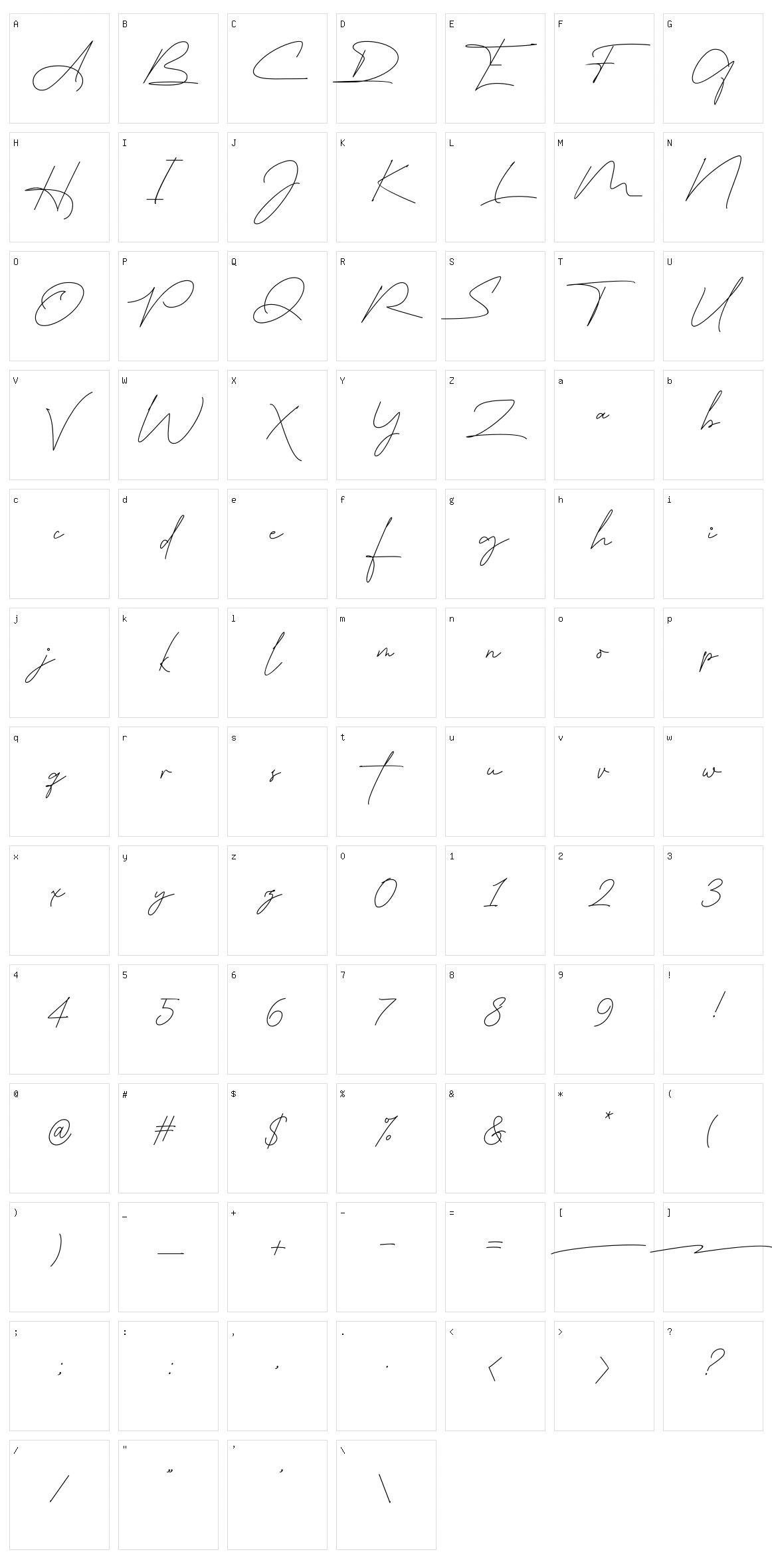
The free font East Liberty Signature is carefully designed by Typeline Studio, showcasing a thoughtful balance of creativity and usability and falls under the Script font style. When you download the ZIP file, it contains only 42.82 KB of font files, making it lightweight and quick to download. Please review the license details below to understand permitted usage and distribution rights. If license information is not available, we recommend using this font for personal projects only or contacting the author directly for commercial usage permissions.